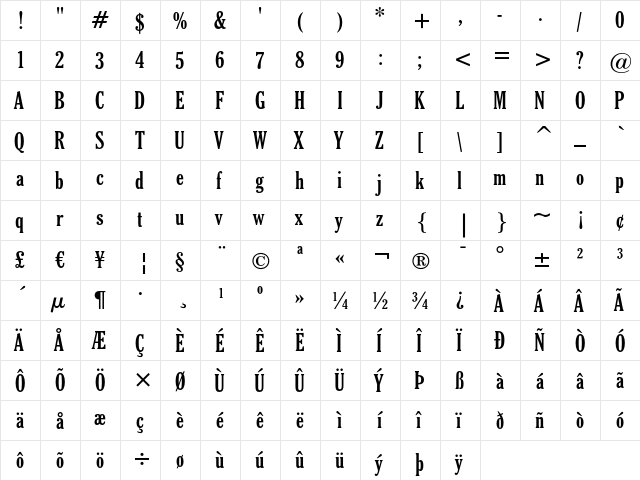
Cheltenham Bold Extra Condensed
Design Context for Cheltenham Typeface
Cheltenham takes a measured approach to typography — its balanced proportions and neutral character make it a reliable workhorse for both digital and print work. The heavy weight commands attention and anchors typographic hierarchies. Its narrow stance lets it pack a punch even in space-constrained designs.